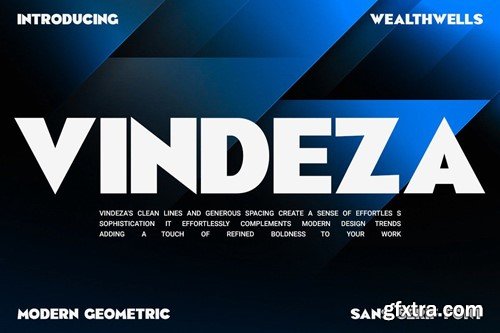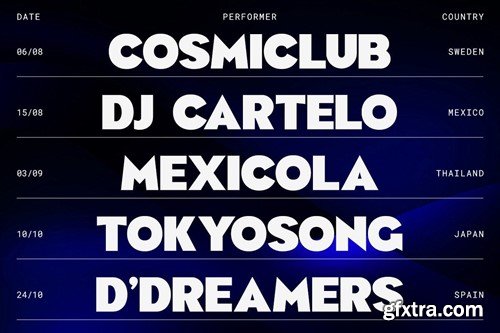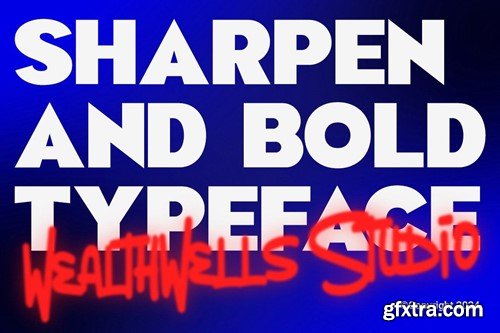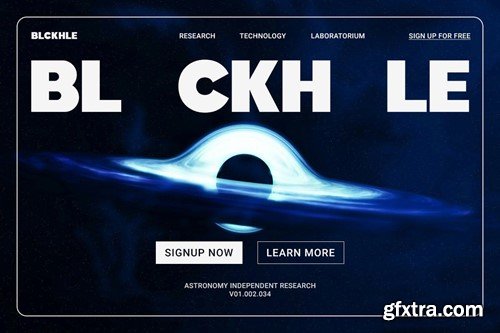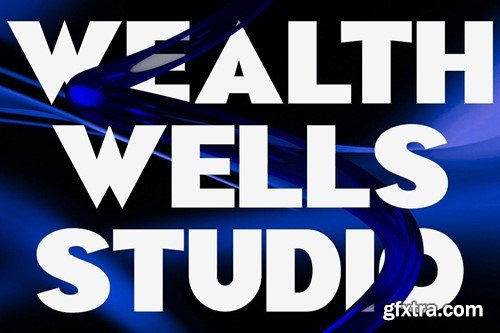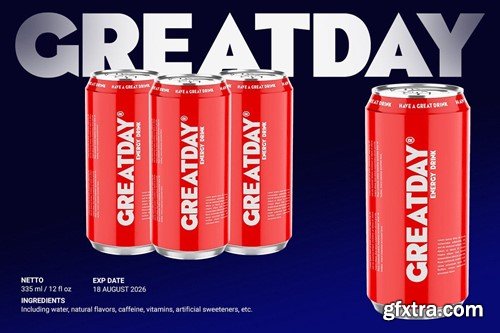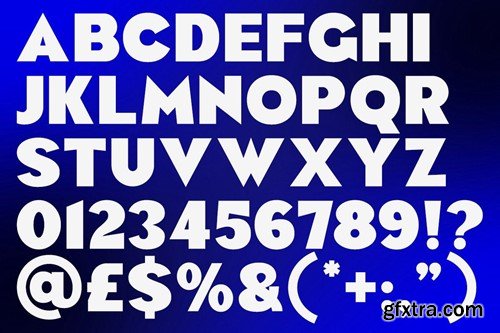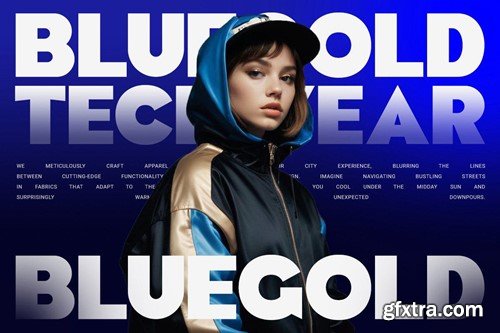
Vindeza Modern Geometric Sans Serif Font
Vindeza Modern Geometric Sans Serif Font typeface excellent used for the manufacture quote text, logotype, corporate identities, marketing material, branding and many more. Main Features Thank You